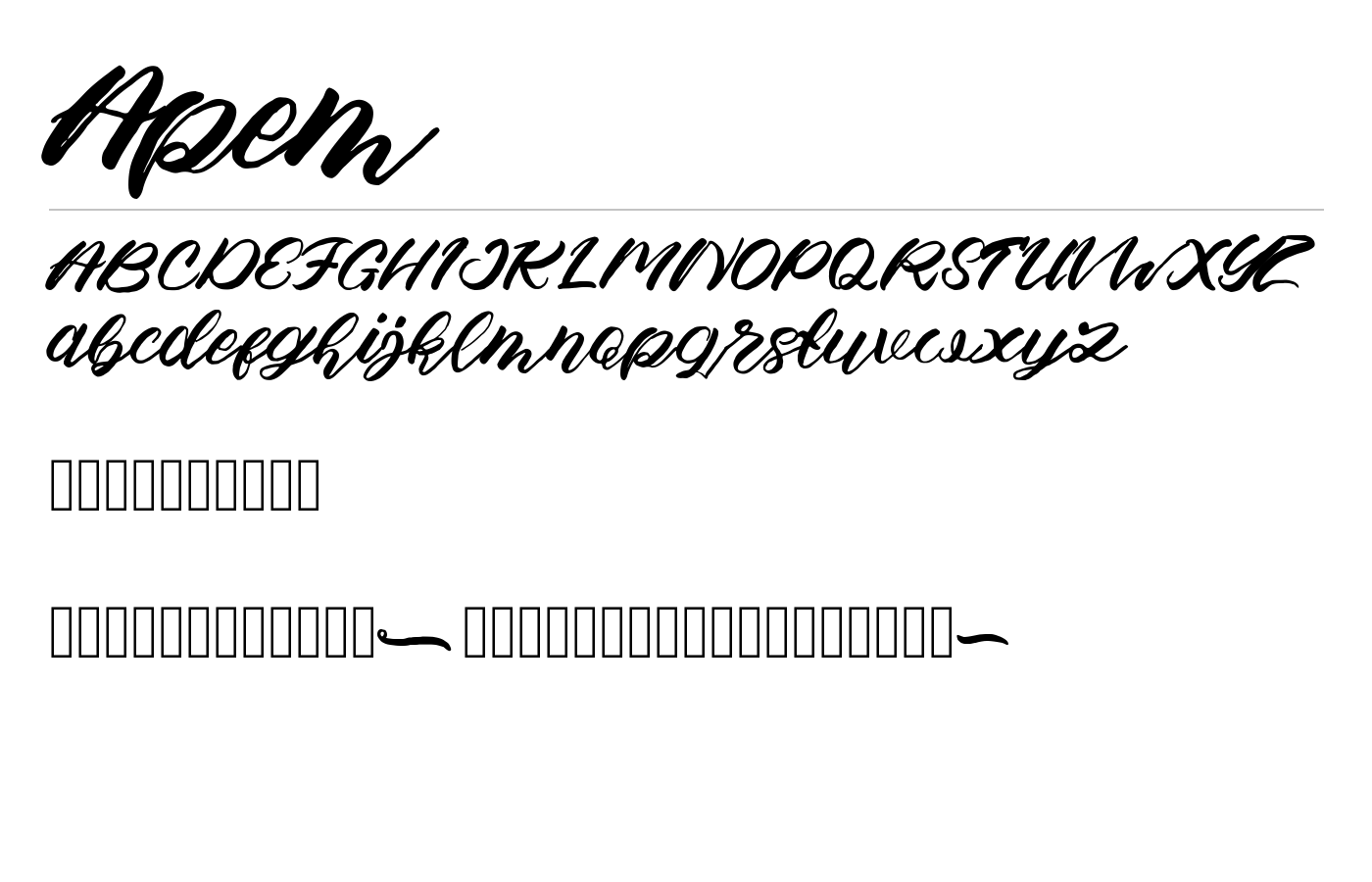
Apem is a lively and stylish script font characterized by its fluid, hand-drawn strokes and moderate contrast between thick and thin lines. Its casual, yet elegant appearance makes it perfect for creative projects like branding, invitations, and social media graphics where a personal and approachable feel is desired. With its readable letterforms and natural flow, Apem adds warmth and charm to any design without sacrificing clarity.
Apem Font